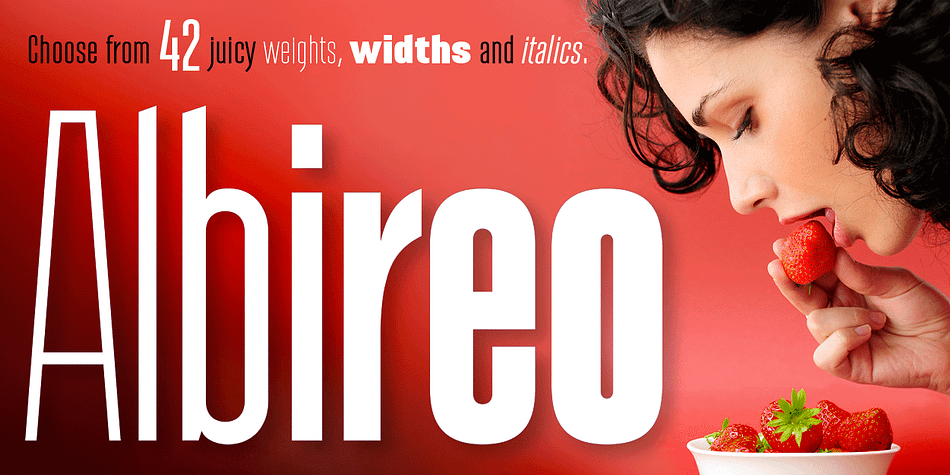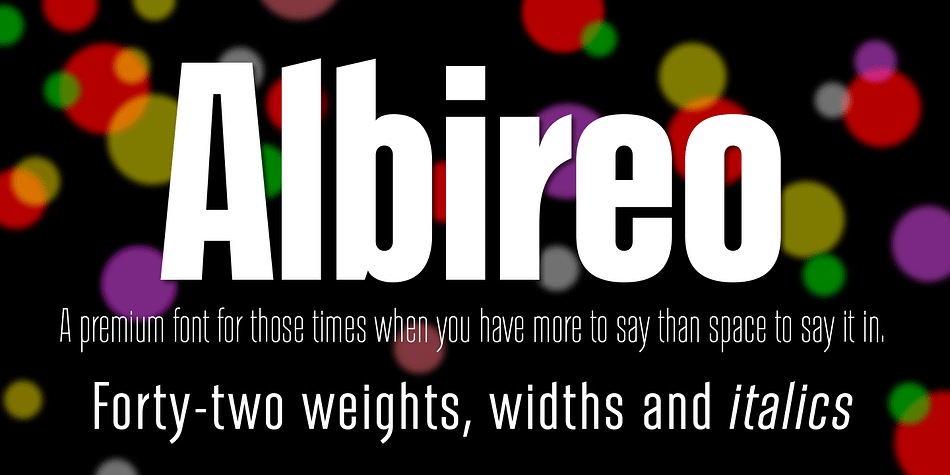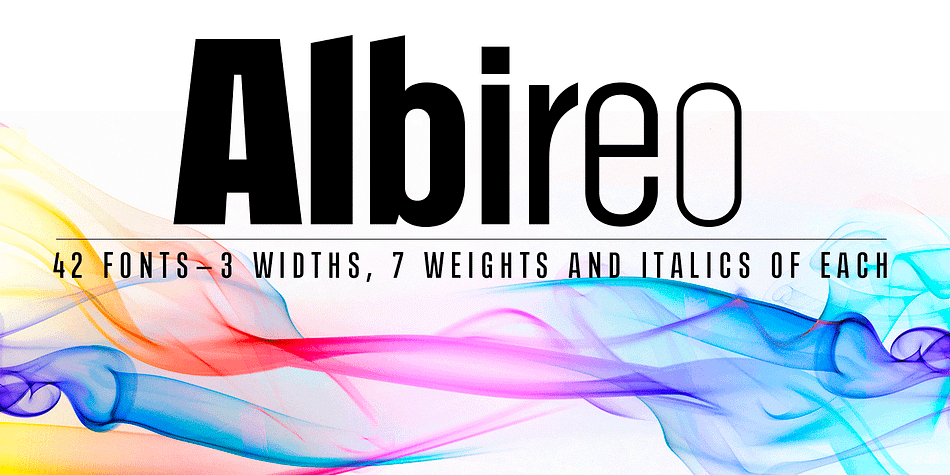
Designed by Cory Maylett, Albireo is a display sans and sans serif font family. This typeface has forty-five styles and was published by Cory Maylett Design.
Albireo is a typeface for those times when you have more to say than space to say it in. It also looks fantastic spread out across the page as though space doesn’t matter.
Expertly crafted with a high level of attention to detail, Albireo is an immensely practical and flexible typeface that’s neutral enough to be used almost anywhere a highly condensed, sans-serif face is needed. Despite its down-to-earth functionality, this is a typeface that definitely isn’t lacking in style. It really shines when used for headlines or subheadings in magazines, brochures, posters, newspapers, flyers or on the web.
With 42 weights, widths and italics, there’s enough flexibility to make every word fit perfectly. Purchase the entire collection and, in addition to the 42 separate fonts, you’ll receive two variable fonts (upright and italic) that cover all the weights, widths and everything in between.
So where does the name come from? Well, look upwards at night. Albireo is a binary star in the constellation Cygnus. Through a backyard telescope, Albireo (the star) resolves into two brilliant component stars — one orange and one blue. The beginnings of the typeface were the result of me needing a newspaper feature headline about space exploration. I couldn’t find the right typeface, so I drew my own letters and eventually expanded it out into an entire mega-family. Given its origins, naming it after my favorite star seemed totally appropriate.
Check it out. I think you’ll love it. Albireo deserves its place as a shining star in everyone’s font collection. It’s that good — really.